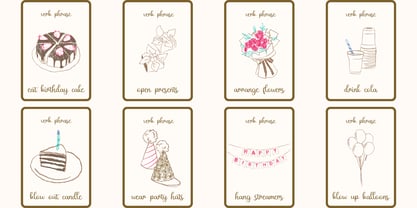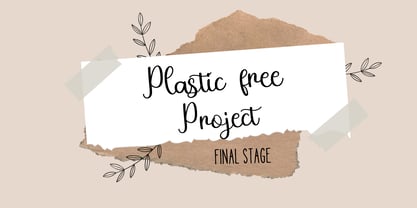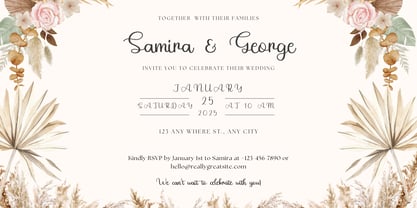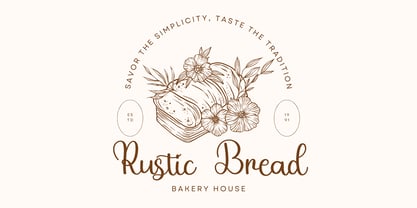
Liliana Rose
by Beary
The Liliana Rose Font Family was designed by Dian Haniffan Hadi and published by Beary. Liliana Rose contains 1 styles.
Introducing Liliana Rose – a delicate and elegant handwritten script font that brings a personal and artistic touch to your designs. Carefully crafted to mimic natural handwriting, this font flows beautifully with soft curves and graceful strokes.
Liliana Rose is perfect for wedding invitations, branding, social media posts, quotes, and any project that needs a touch of romance and sophistication. With smooth letter connections and stylish ligatures, it effortlessly enhances your typography with charm and elegance.
Designed to be both versatile and visually stunning, Liliana Rose includes a full set of uppercase and lowercase letters, numbers, punctuation, and a variety of swashes and alternates, giving you creative freedom to personalize your designs.